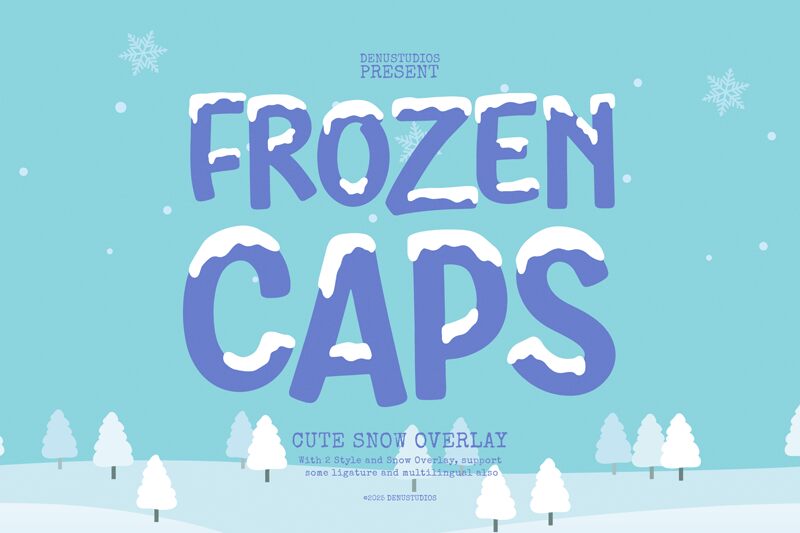
Frozen Caps font family by Denustudios is a free font family composed of three font styles with a holiday, winter aesthetic. Each of the font styles combines decorative accents and a snow-themed whimsical feel for thematic decoration. The entire family’s tone is friendly with contemporary novelty use. It suits the identities of individuals and brands that appreciate holiday cheer.
Frozen Caps can decorate invitations to holiday and Christmas gatherings, holiday cards, modern-day digital greeting cards, branded themed content, original stationery projects, and even more marketing materials like brochures, flyers, and posters. Websites can also be brought to life using the same stunning free font family.
Frozen Caps is a delightful typeface perfect for a variety of creative projects. Whether you're designing product packaging, mugs, quotes, posters, shopping bags, t-shirts, book covers, name cards, invitation cards, greeting cards, labels, photography, watermarks, special events, or any other charming endeavor, Frozen Caps adds a cute snow overlay touch.